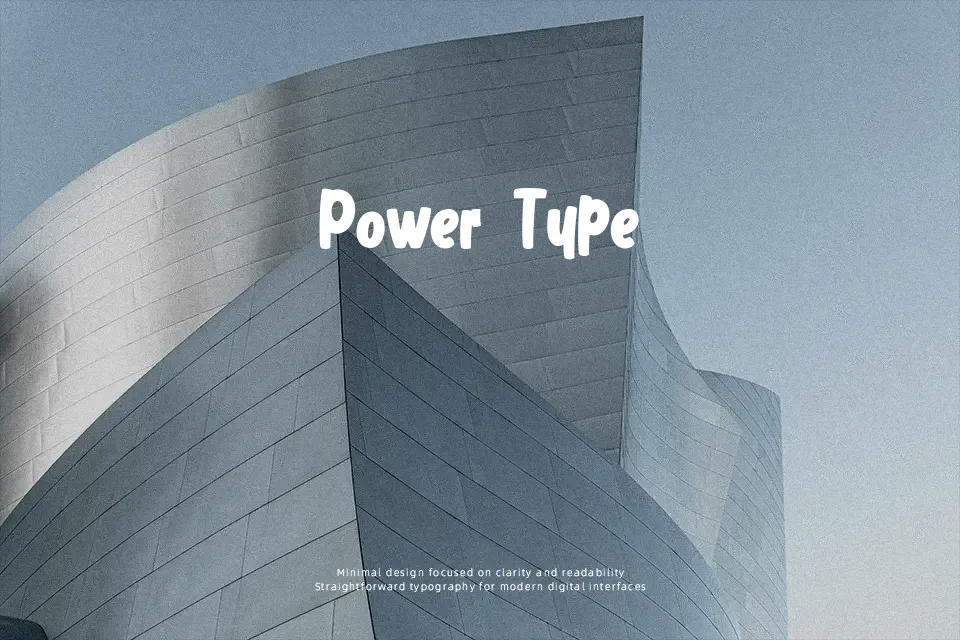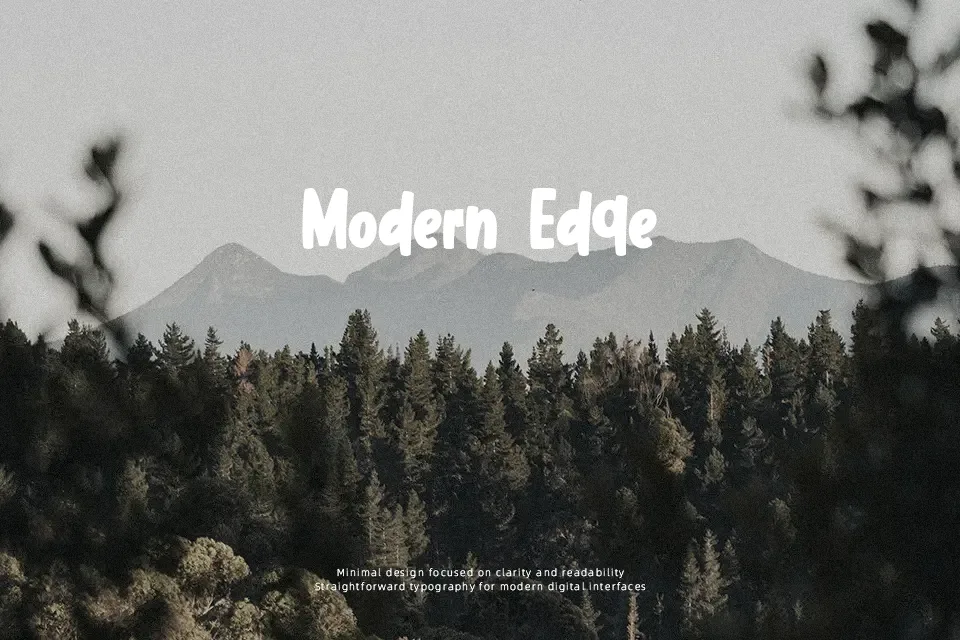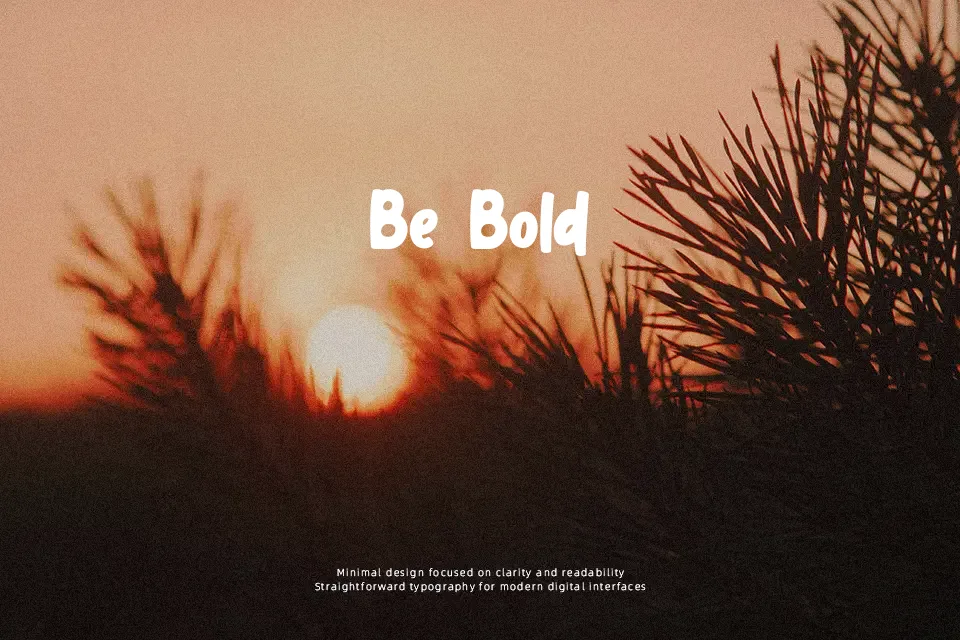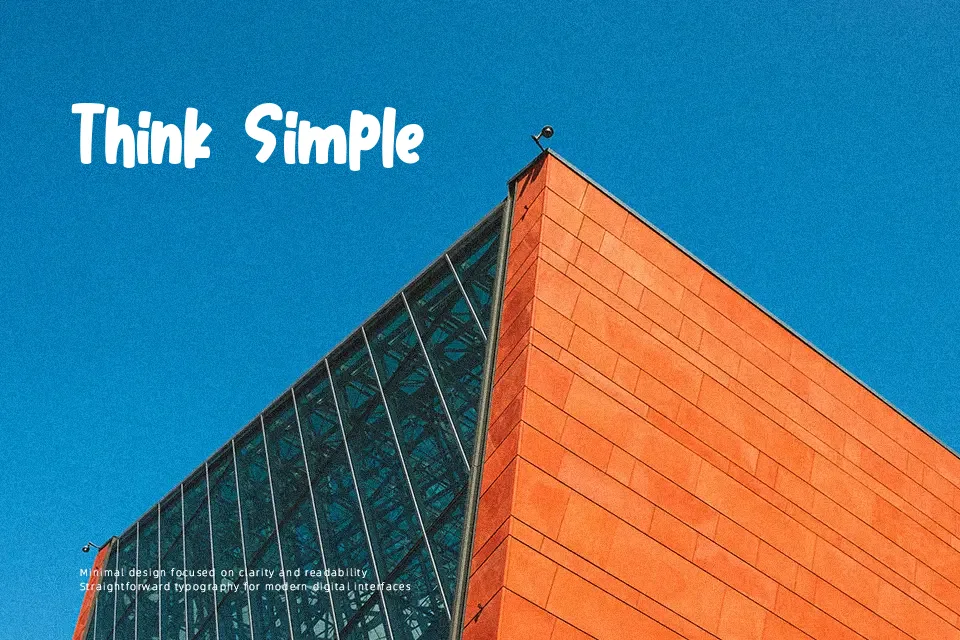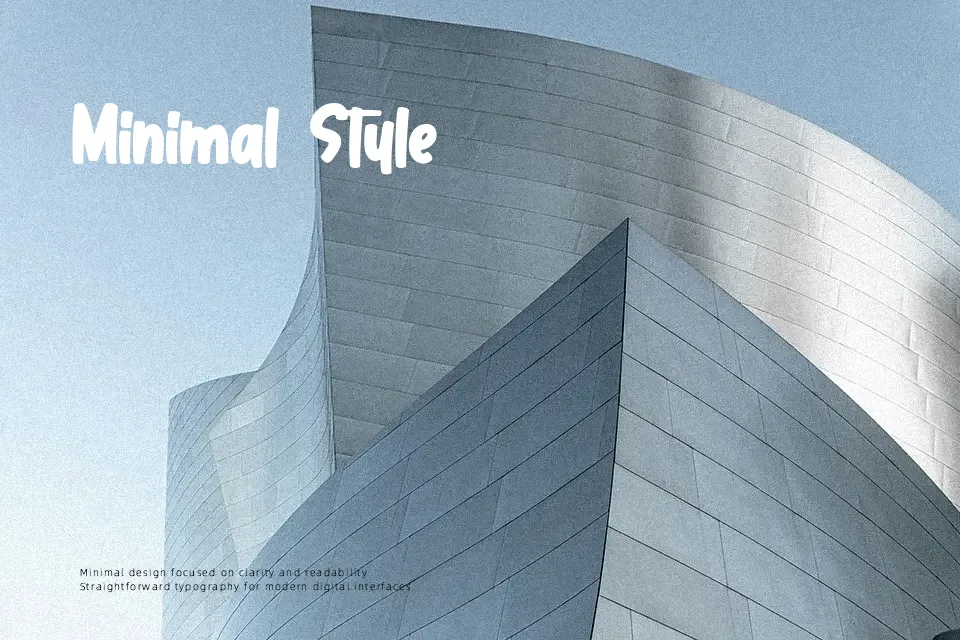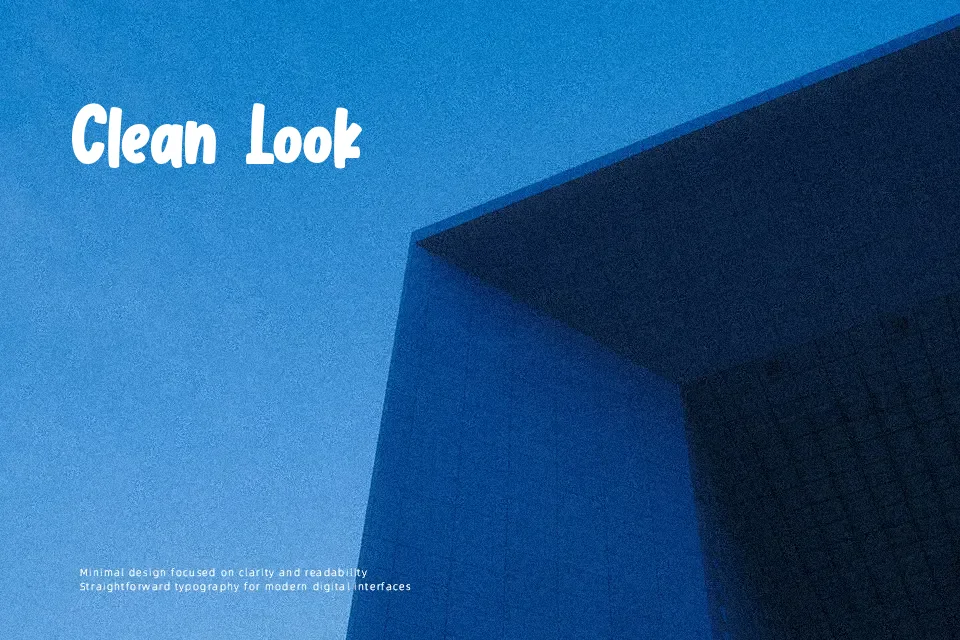
Cherry Blue Font
Cherry Blue Font features rounded contours, thick strokes, and a bouncy baseline that deliver an animated aesthetic. The letterforms display generous internal counters with soft, bulbous terminals, maintaining an upbeat visual rhythm across short phrases. Generous character spacing prevents the heavy strokes from colliding in large layouts. While the typeface excels in children’s book titles, party invitations, and merchandise graphics, its heavy weight and whimsical proportions reduce legibility in small captions or extended reading blocks. The uniform thickness ensures excellent visibility in bold headers, making it a reliable choice for lively, high-impact display work.
Best For: children’s book covers, toy packaging, animated title cards, playful merchandise
Not Ideal For: continuous body text, corporate annual reports, legal documentation, small user interface captions
Perfect for kids, logo, and packaging, with a bubble and cartoon style.